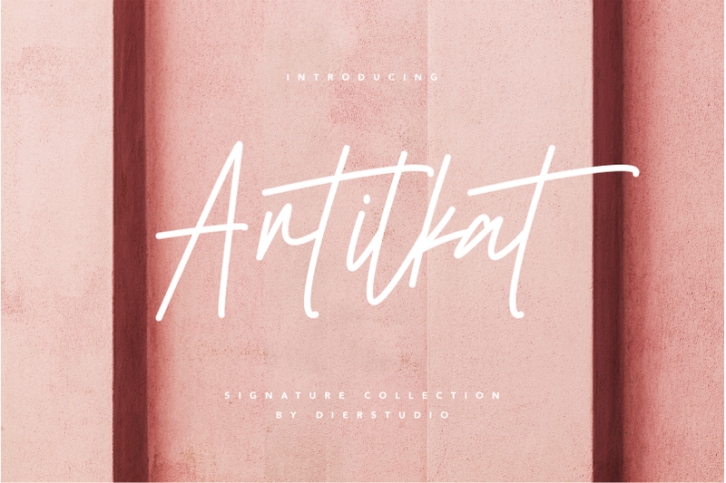
Antilkat is stylish and stunning signature typeface with personal touch movement which make your latest project looks amazing.
Antilkat is perfect for branding projects, logo, wedding designs, social media posts, advertisements, product packaging, product designs, label, photography, watermark, invitation, stationery and any projects that need handwriting taste.